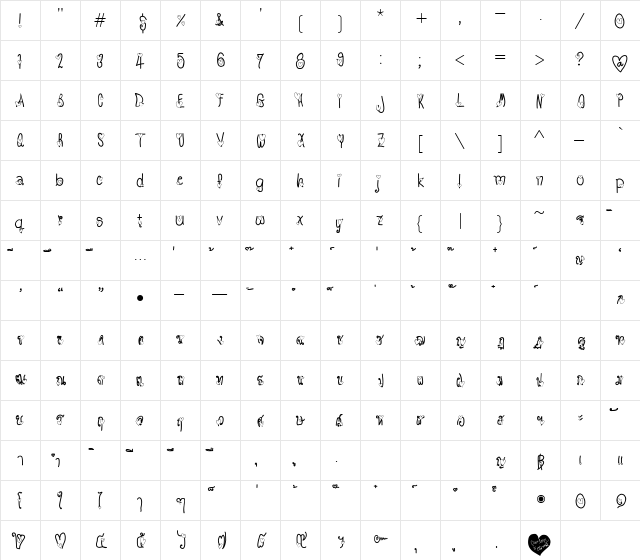
TX_Love Regular
| Foundry | Puey Ounai |
| Designer | Puey Ounjai |
Design Context for TX_Love Typeface
TX_Love is a composed and adaptable typeface that performs quietly and consistently across a wide range of design contexts.